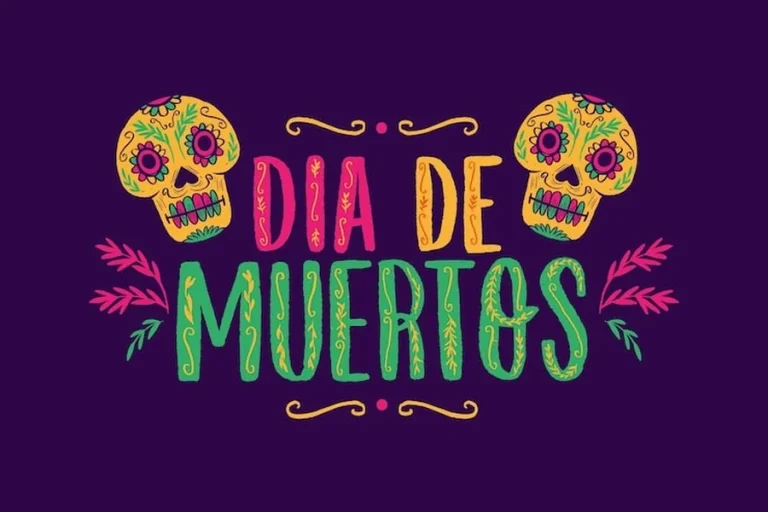
History and celebration of Dia de los muertos font. This style is the spirit of the remembrance of life and the happiness. It relates art with culture in a glaring visual way. The hand-drawn playful and expressive letters are frequent. Curves, dramatic strokes and flowers are common in many designs. These characteristics assist in expressing admiration towards tradition with the ability to express creativity.
The style has its origin in the Mexican culture and it is dedicated to the passing of loved ones. It is not dark or sad. It is vibrant and alive and possesses character. The dia de los muertos font brings warmth and meaning to the work done by designers. It is effective with posters, branding events and digital art.
The style of this font frequently combines the element of vintage and folk art vitality. You can find skull inspired forms or ornamental sides. These facts make it emotional without excessive visuals. It is the reason why most artists use it in cultural projects.
Dia de los muertos font is to be handled with care and respect. It will have to be festive, not cartoonish. When properly used it brings in charm and narrative ability.
dia de los muertos font has a bold and expressive appearance. Letters can have the appearance of being hand painted or cut. Others are innocent and some are theatrical. The strokes used are usually varied in thickness giving movement to the design.
This style is frequently used by the designers in festival posters, or branding a culture. It is a source of warmth and closeness. It can also be used in invitations and art that glorifies heritage.
The font alone may be emotive whereas colors tend to be in favor of the font. Even in black and white the form speaks volumes. That is why it is successful in print and on-line.
Dia de los muertos font is so appealing because of its character. Each letter feels alive. It does not appear rigid or contemporary. It feels human and crafted.
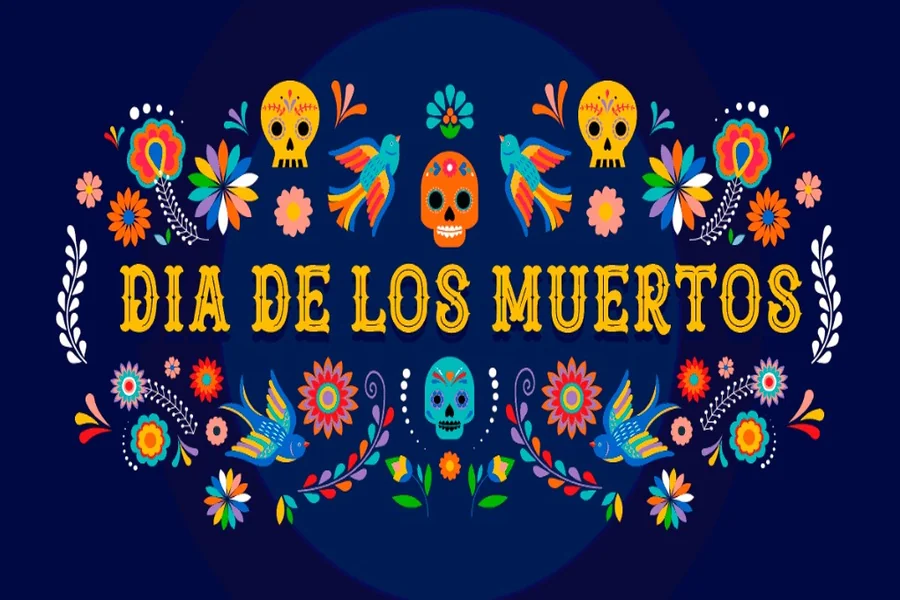
Dia de los muertos font can be used in various imaginative areas. Its daring power is suitable to event posters. Social media images become emotional and cultural. It can be used in special campaigns by the brand logos.
It is also very good with art prints and telling of cultural stories. It is applied by many designers when it comes to visuals with a holiday theme. It may be applied in the material of education to celebrate tradition.
This font is suitable when used with plain backgrounds. It must shine and be articulate. Do not overload the design.
The right place makes your message soulful using this font. It narrates a story without having to add extras.
Not all styles feel the same. Other fonts are light-hearted. Then there are those who are dramatic and potent. Select depending on your message and target.
When your project is festive then use rounded and flowing letters. When serious design is to be taken up then bold and well structured shapes have to be taken. Readability should be checked at all times.
Balance is important. Decorations should not be excessive. Make the message to the point and decent.
The font used in good dia de los muertos is expected to be natural and expressive. It must be able to support what you want to say.
Here are more than fifty font name ideas inspired by the spirit of dia de los muertos font. These names are creative concepts for inspiration.
Calavera Glow
Sugar Skull Script
Marigold Soul
Aztec Bloom
Candle Spirit
Fiesta Bones
Petal Ritual
Vida Alegre
Spirit Bloom
Cempasuchil Flow
Ofrenda Style
Midnight Calaca
Floral Memory
Eternal Fiesta
Luna Altar
Sacred Petals
Cultura Viva
Festival Ink
Heart of Souls
Painted Remembrance
Alma Viva
Fiesta Flame
Candlelight Script
Skull Dance
Echo de Vida
Soul Parade
Heritage Glow
Folk Spirit
Sun Petal
Cultural Beat
Spirit Path
Bloom of Souls
Viva Memory
Artisan Calaca
Festival Roots
Paper Flower
Life Echo
Sacred Brush
Fiesta Soul
Memory Mark
Petal Rhythm
Cultural Pulse
Eternal Bloom
Spirit Color
Day of Honor
Heritage Ink
Soul Fiesta
Tradition Flow
Marigold Dream
Life Script
Sacred Fiesta
How to Use Dia de los Muertos Font in Modern Design
Contemporary design has a tendency to blend tradition with a clean design. Dia de los muertos font has the capacity to fit this balance. Apply it either as a headline or title font. Combine it with plain body font.
It should not be used with long text blocks. It can best be used with short phrases or names. This makes the design understandable and effective.
Use spacing wisely. Let the letters breathe. This improves the beauty of the font.
Where can I use dia de los muertos font?
You can use it for posters branding event designs art prints and cultural content.
Is dia de los muertos font good for logos?
Yes it works well for themed logos especially for festivals or cultural brands.
Can dia de los muertos font be used digitally?
Yes it works well for websites social media and digital art.
How do I choose the right dia de los muertos font?
Choose one that matches your message and keeps readability clear while honoring the culture.